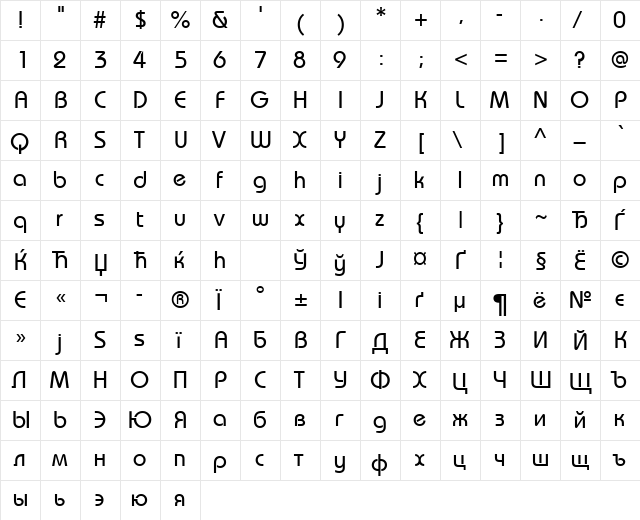
BauhausCTT Regular
Design Context for BauhausCTT Typeface
BauhausCTT takes a measured approach to typography — its balanced proportions and neutral character make it a reliable workhorse for both digital and print work.